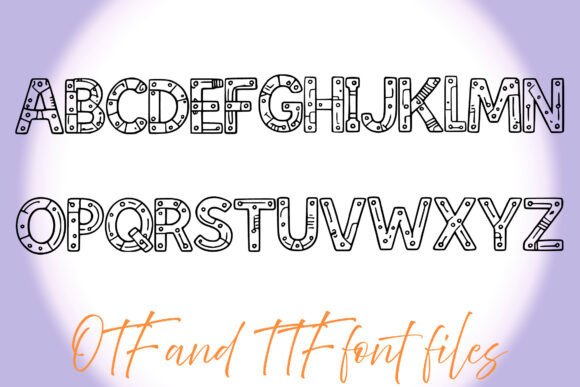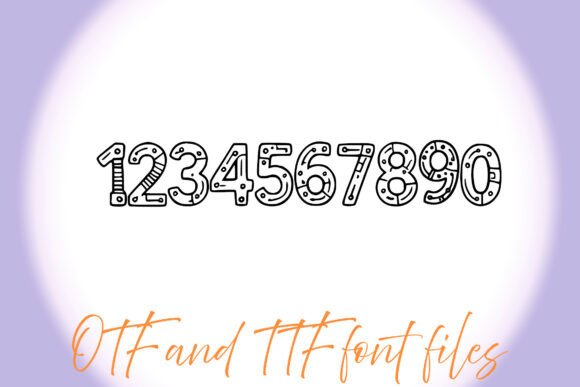
Introduction to Robot Parts Font
Mechanical and modern, Robot Parts Font is a playful, tech-inspired typeface made of illustrated panels, bolts, and circuits.
Its cartoonish robot motif brings a fun and futuristic vibe to kid-friendly designs, gaming graphics, or STEM-themed printables .
Key Features of Robot Parts Font
Why Choose Robot Parts Font?